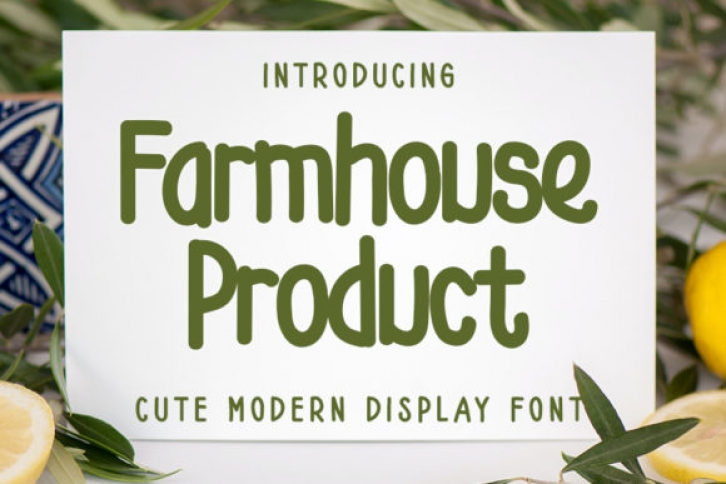
Farmhouse Product is a beautiful and natural display font. Trendy and clean, this font will be an incredibly asset to your fonts’ library, as it has the potential to elevate any creation.